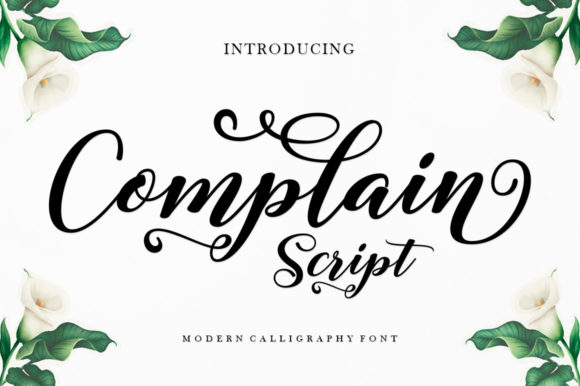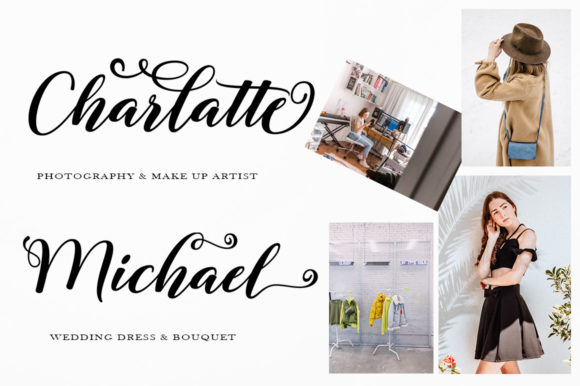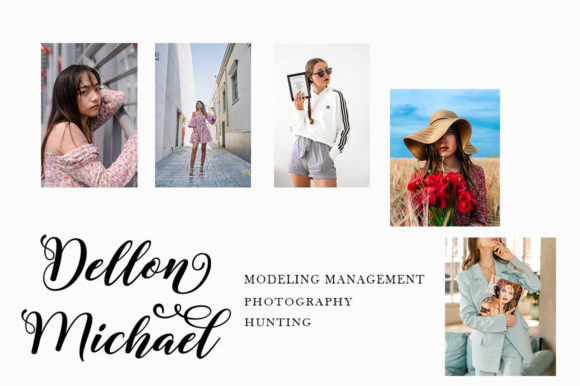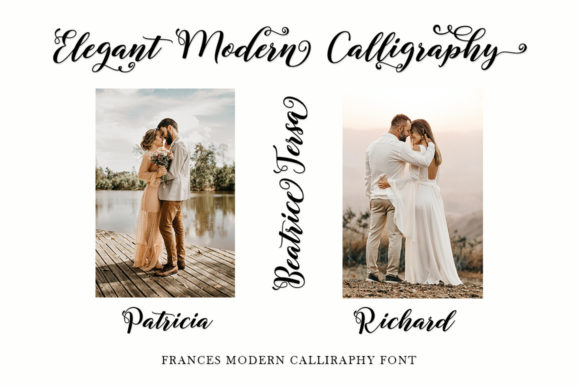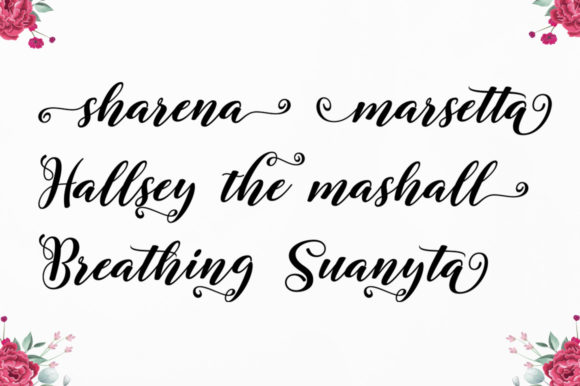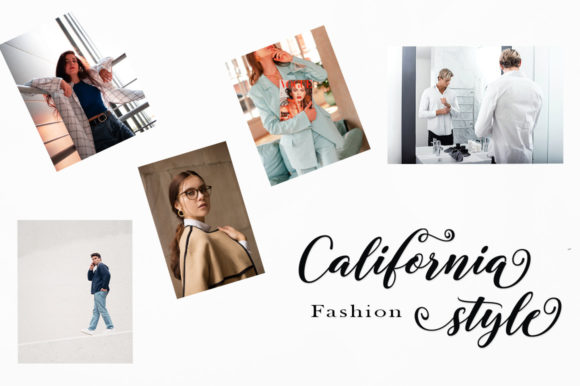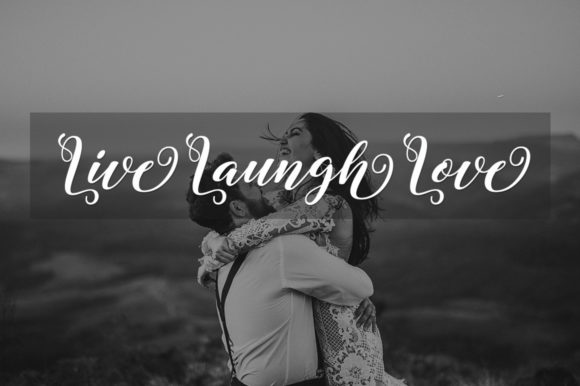
Complain Script Font
About Complain Script Font
Complain Script is a ravishing script font. This font is neatly crafted and highly detailed. Irrespective of the topic, this font will be a lovely asset to your font library, as it has the potential to enhance any creation.Complain Script is PUA encoded which means you can access all glyphs and swashes with ease!